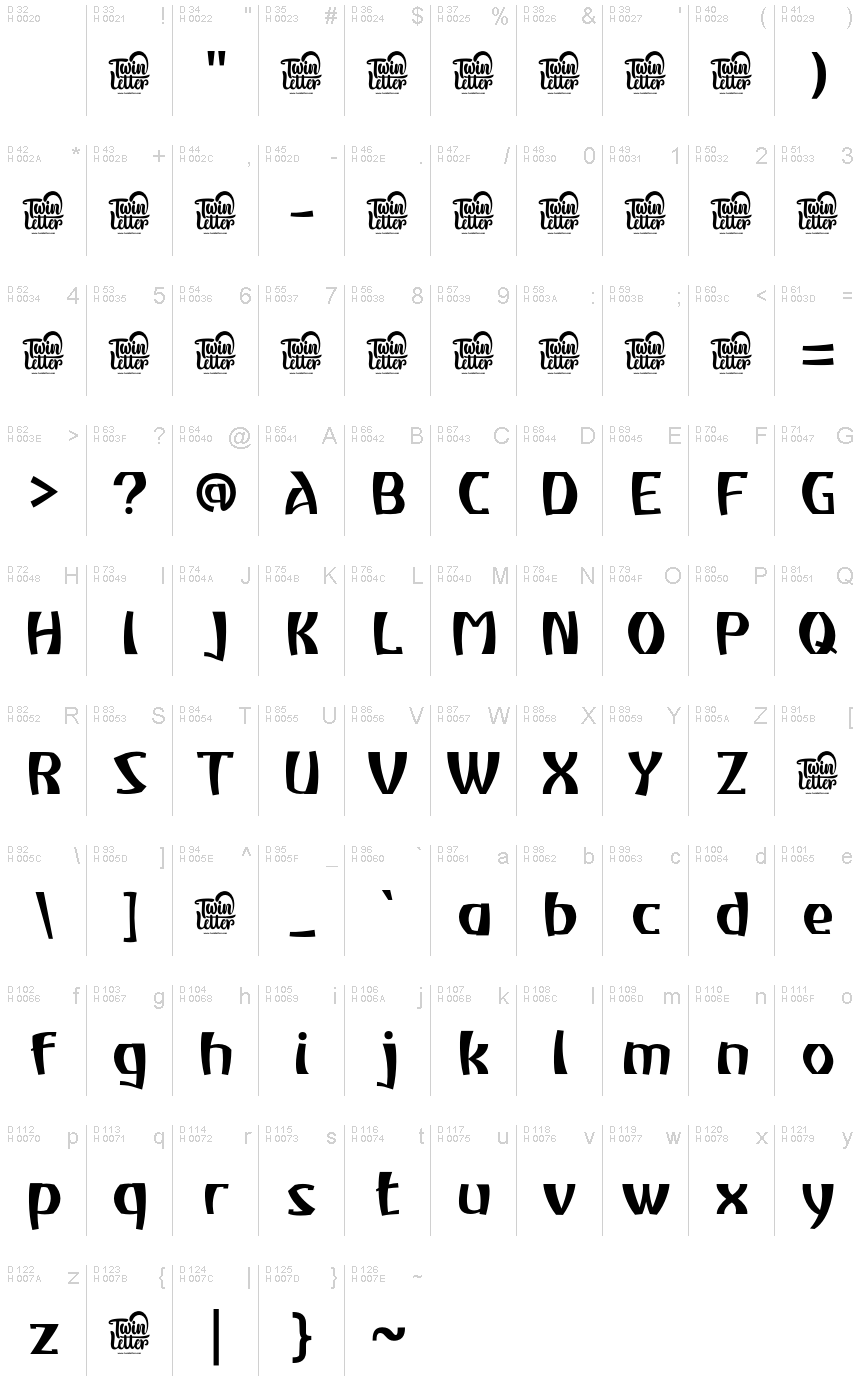
Atiku font by Twinletter offers a stunning blend of elegance and exotic flair, embodying the essence of Japanese style. Designed for the next generation, this luxurious font family captivates with its unique design, ensuring your brand stands out. The expansive collection of 18 styles provides versatility for a wide range of creative projects, from eye-catching ads to engaging social media posts.
With its distinctive look and extensive OpenType features, Atiku is your go-to choice for crafting compelling designs quickly. Ideal for designers seeking a free font download that combines sophistication with a modern twist, Atiku enhances any project with ease and style.